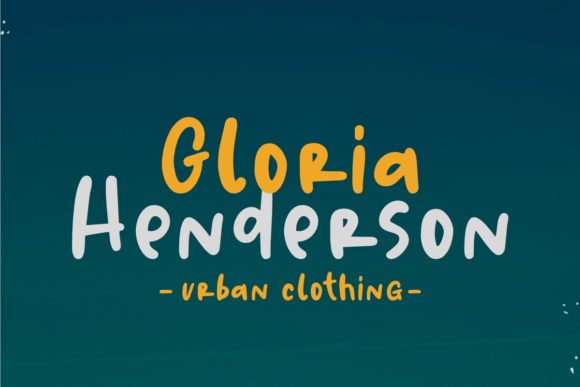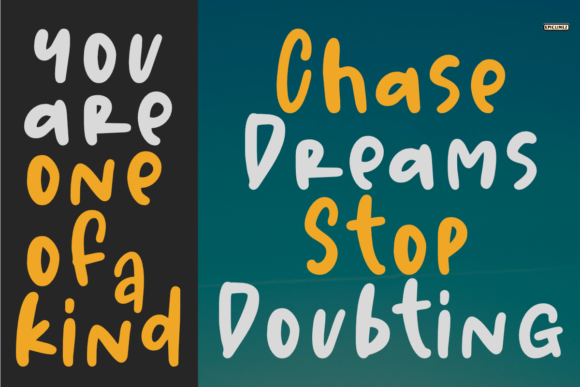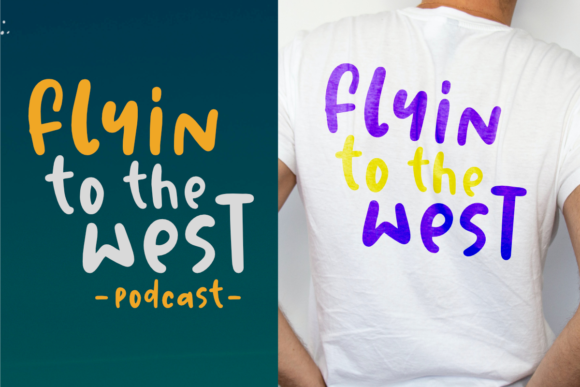
Introduction to Night Blazer Font
Have you ever been working on a creative project and stumbled upon the perfect font to bring your idea to life? That’s exactly what happened to me when I discovered the Night Blazer Font. Its childlike playfulness instantly made me think of colorful illustrations and whimsical characters. As a designer, I know how crucial it is to have a high-quality design resource like the Night Blazer Font to elevate any project.
With its transparent background and free download option, the Night Blazer Font is a versatile design tool that’s perfect for a variety of creative projects, from kids’ party invitations to educational materials. Whether you’re working on a freelance project or a school assignment, this font is sure to bring a smile to your face and a touch of creativity to your work.
Key Features of Night Blazer Font
- High-quality font design with a unique, bold style suitable for creative projects.
- Features a transparent background, making it easy to customize and layer with other design elements.
- Designed with a high resolution, making it perfect for use in large-scale designs and print materials.
- Perfect for use in creative projects, such as graphic novels, comic books, and video games, due to its bold and edgy style.
- Includes a range of characters, including uppercase and lowercase letters, numbers, and punctuation marks, making it a versatile design resource.
Honest Review: Night Blazer Font
I recently stumbled upon the Night Blazer Font and I have to say, I was impressed with its high quality and unique style. As a designer, I’m always on the lookout for new design resources that can help bring my creative projects to life.
- ✨ High-quality design that stands out from the crowd
- ✨ Unique and creative style that’s perfect for modern designs
- ✨ Transparent background makes it easy to use on any design background
- ⚠️ Limited character set, which may not be suitable for longer texts
- ⚠️ May not be as versatile as other fonts, but perfect for specific design projects
Overall, I’m really impressed with the Night Blazer Font. It’s a great addition to any designer’s toolkit and is perfect for creative projects that require a unique and modern touch. I would definitely recommend it to anyone looking for a high-quality font that’s easy to use.
The Night Blazer Font is ideal for creative projects, such as graphic designs, social media graphics, and presentations. Its unique style makes it perfect for adding a touch of elegance and sophistication to any design.